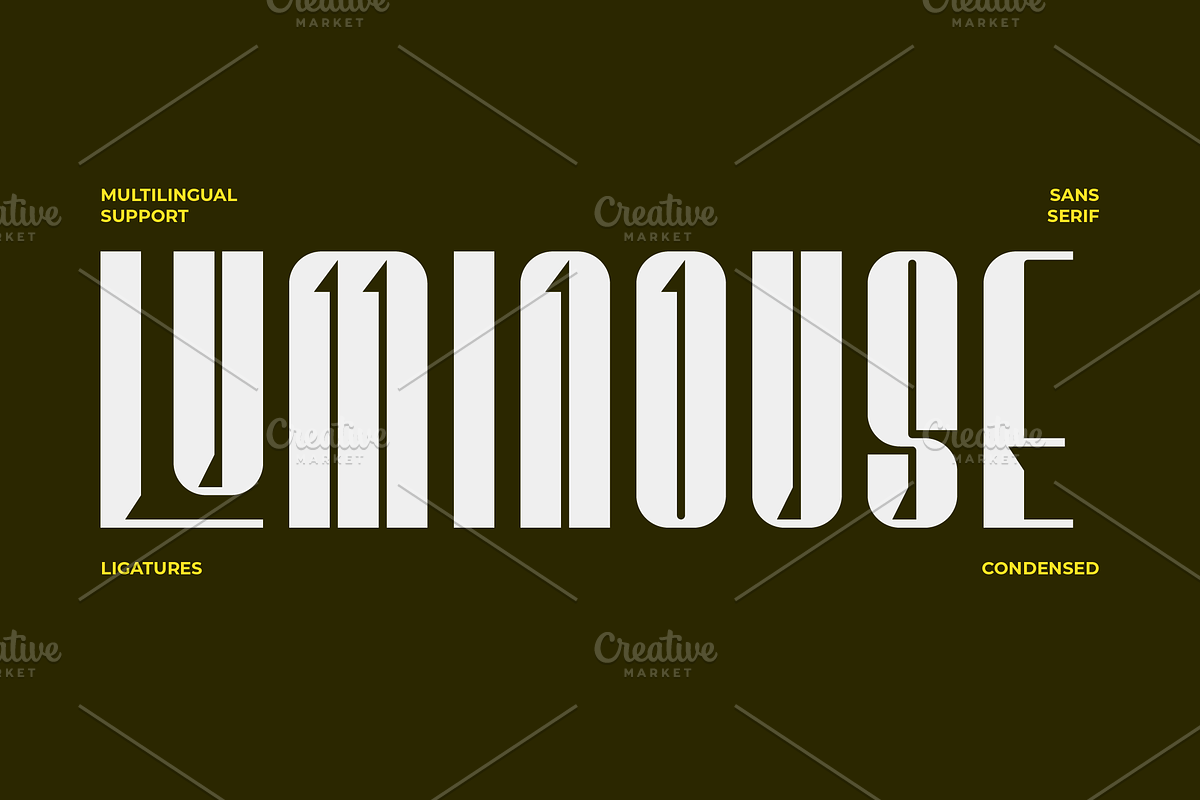
Make your message shine with Luminouse Condensed Sans Serif Font Free Download — a sleek, modern typeface designed for clean, bold expression. With its narrow proportions and minimalist elegance, Luminouse is perfect for editorial headlines, fashion branding, web interfaces, product packaging, and high-impact logos.
The condensed structure helps maximize space while maintaining excellent legibility and style. It includes uppercase and lowercase letters, numerals, punctuation, and multilingual support — giving you flexibility across platforms and design styles.